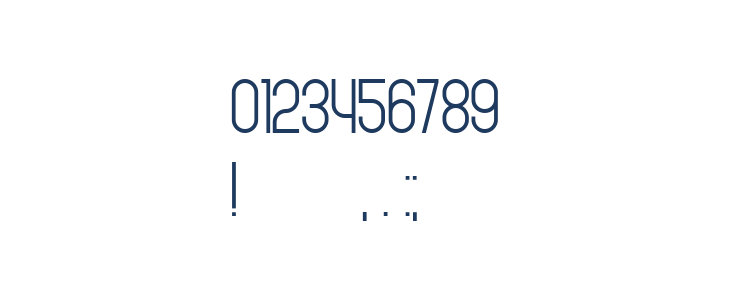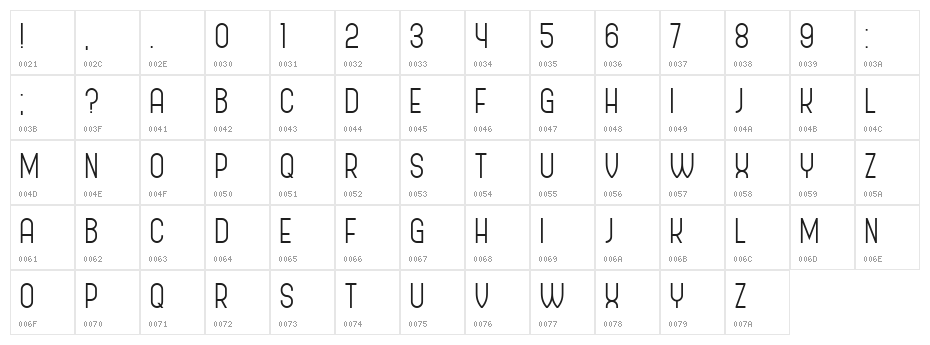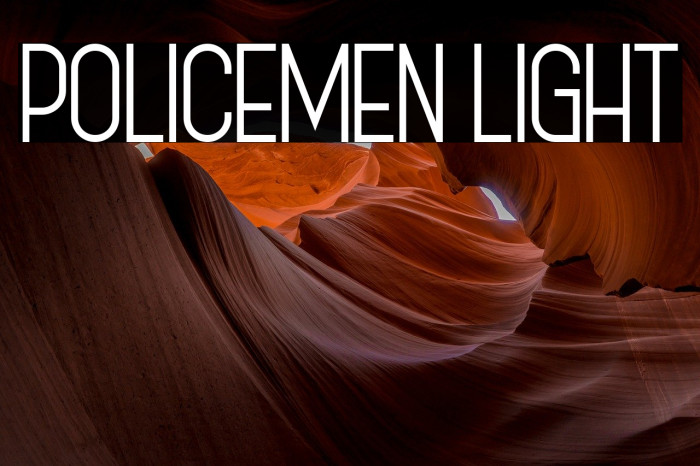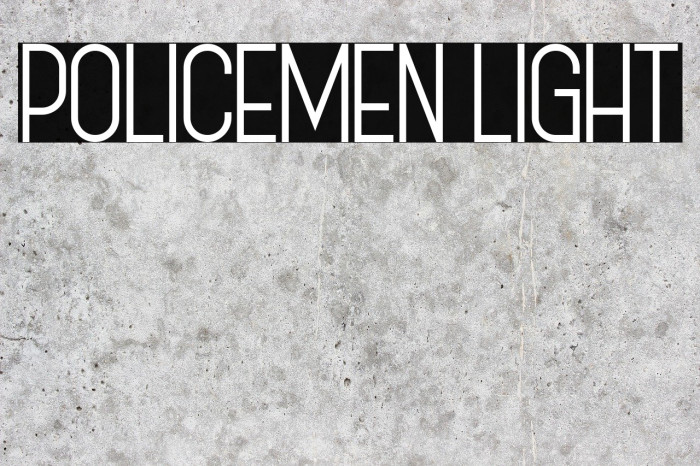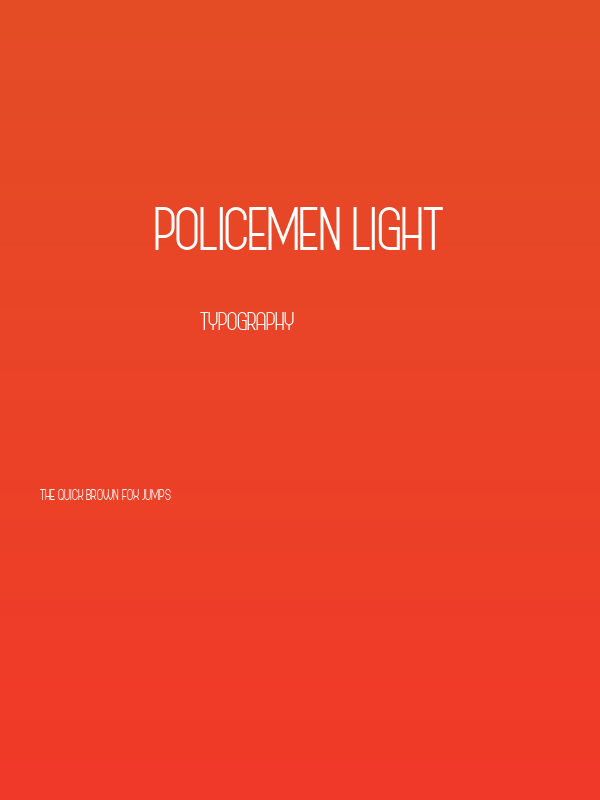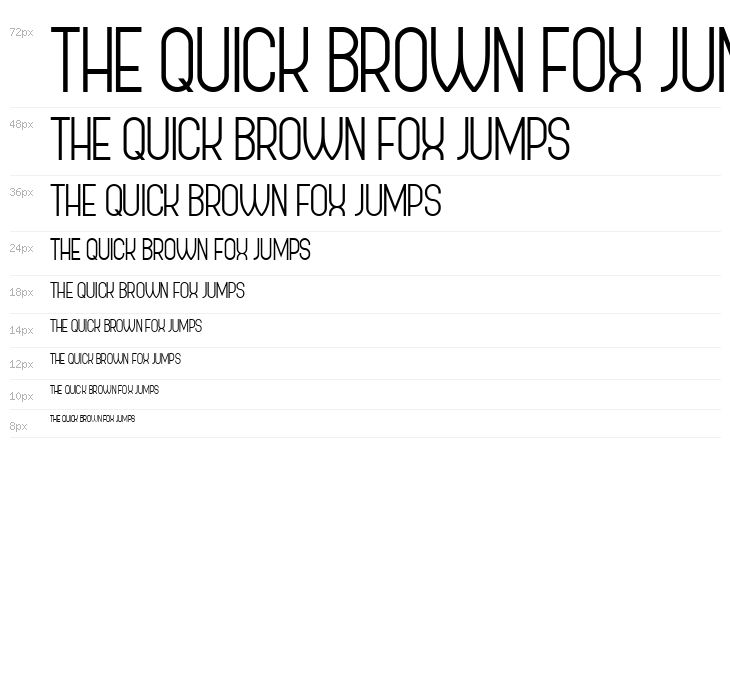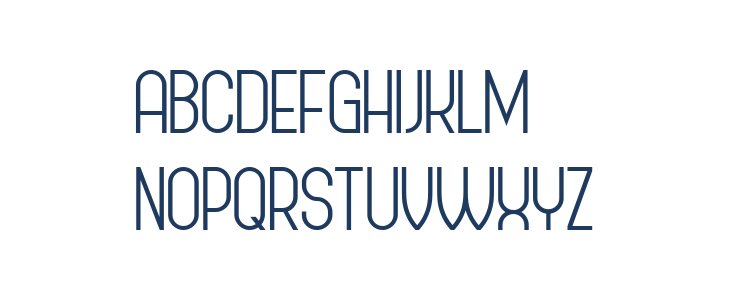
Policemen Light Font
Policemen Light Description
This font features a clean and modern sans-serif style with a geometric structure. The characters are tall and narrow, giving it a condensed appearance. The strokes are uniform in thickness, contributing to a sleek and minimalistic look. The uppercase and lowercase letters maintain a consistent design, enhancing readability. The numerals and special characters are designed to match the overall aesthetic, making it versatile for various applications. The font's simplicity and elegance make it suitable for contemporary design projects.
| Proposed Projects | Ideal for branding, editorial design, posters, and digital interfaces. |